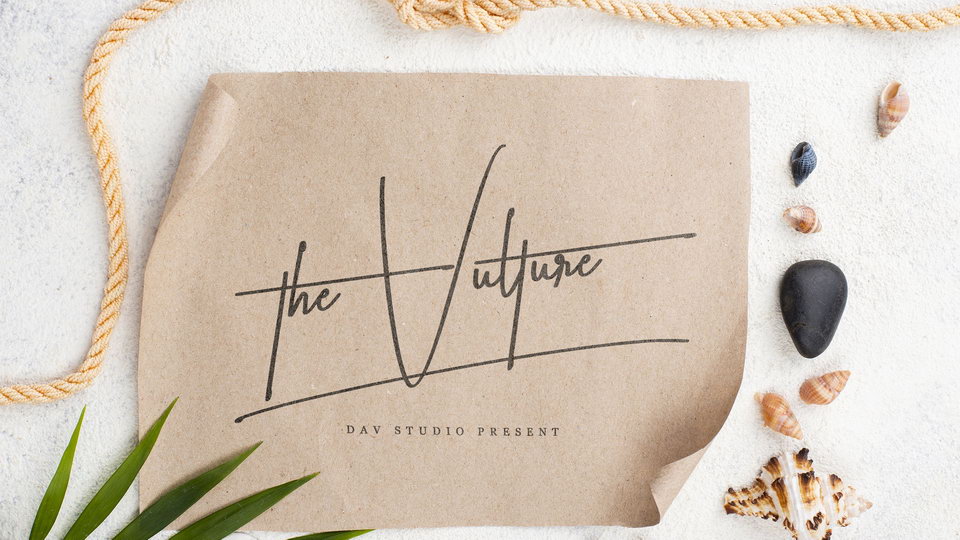
Feb 10, 2025Script & HandwrittenThe Vulture Font The Vulture is a stylish signature font with natural strokes accompanied by firm lines. The Vulture is suitable for greeting cards, logos, branding, mockups, DIY projects, etc. Font DetailsDesigned by: Dav StudioWebsiteLicense: Free for personal use Download The Vulture FontFile size: 44.51 KBCreated: February 16, 2025Updated: February 16, 2025 Download Explore similar fonts Arthur Meridian Font Aesthetic Shine Font Hipnotesa Majestory Font Garitson Font Belphia Font Autograph Westhelin Font # Casual# Handwriting# Signature More fonts by Dav StudioDollamin FontCosette ScriptEstillon FontRomantica FontPostless FontDalmantian FontBaremila FontThe Rickon Font